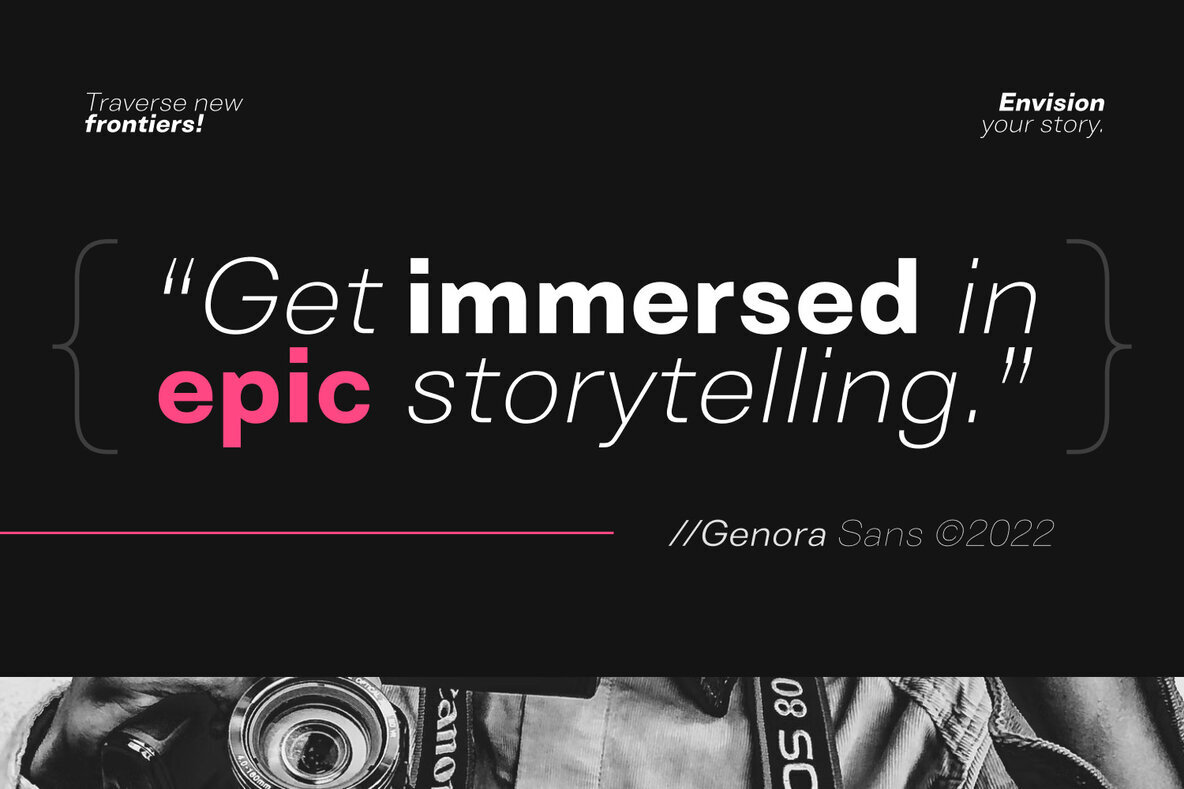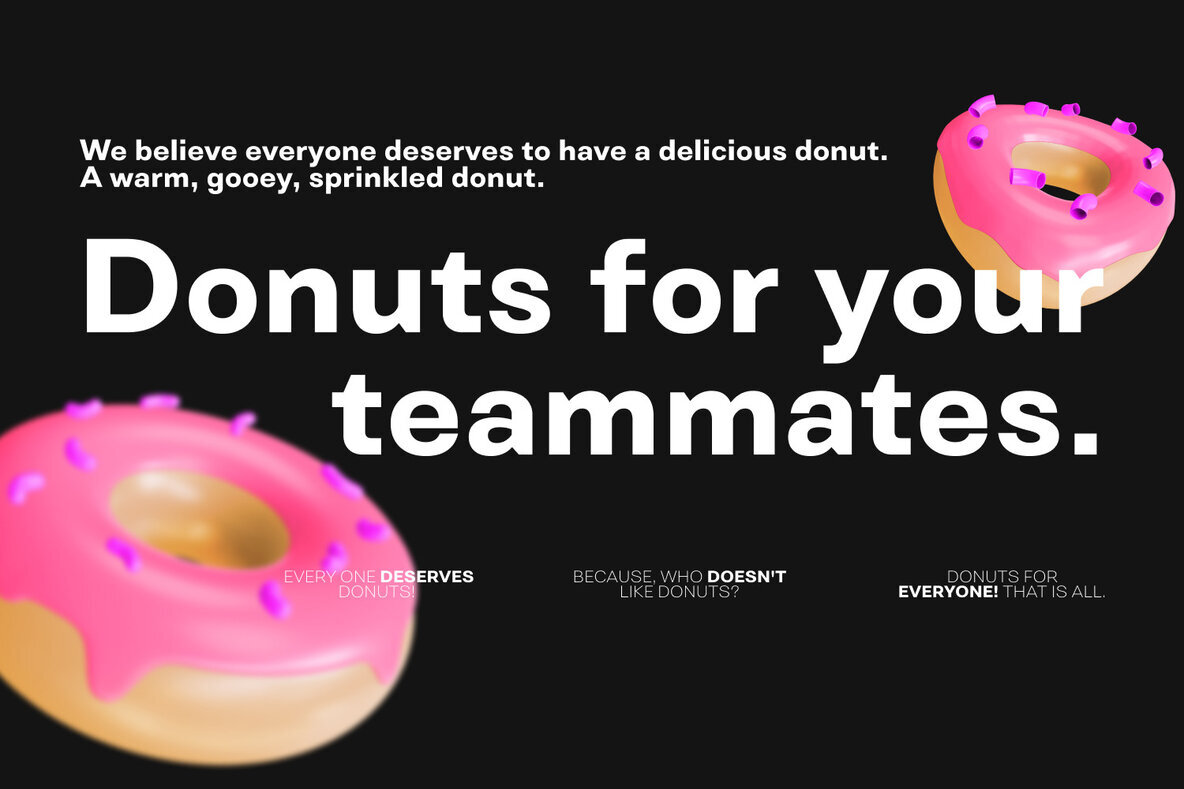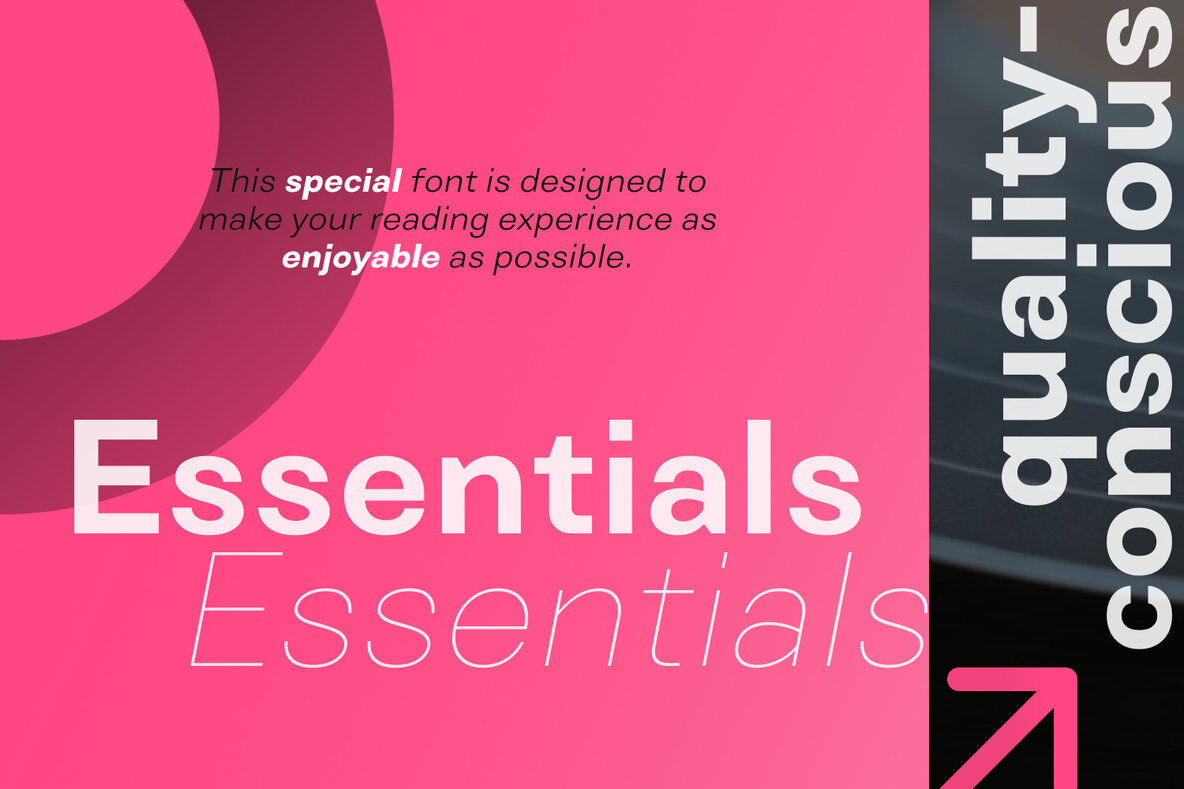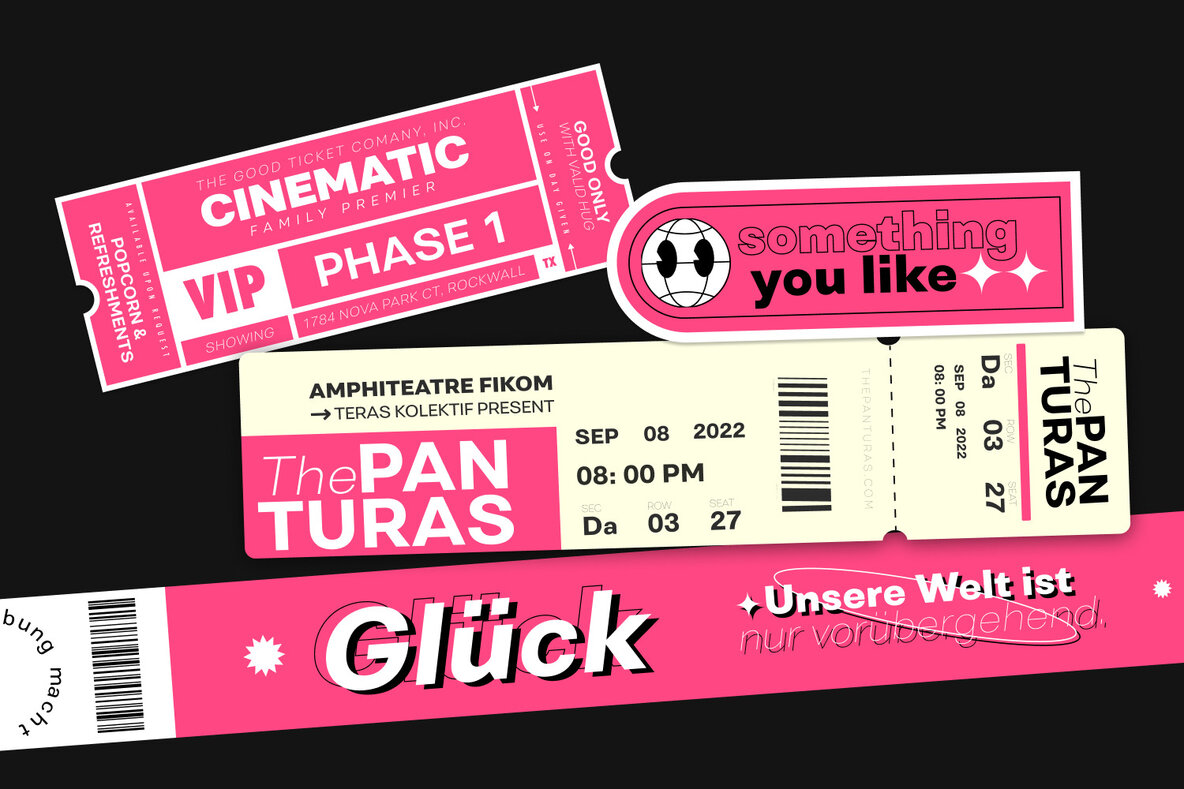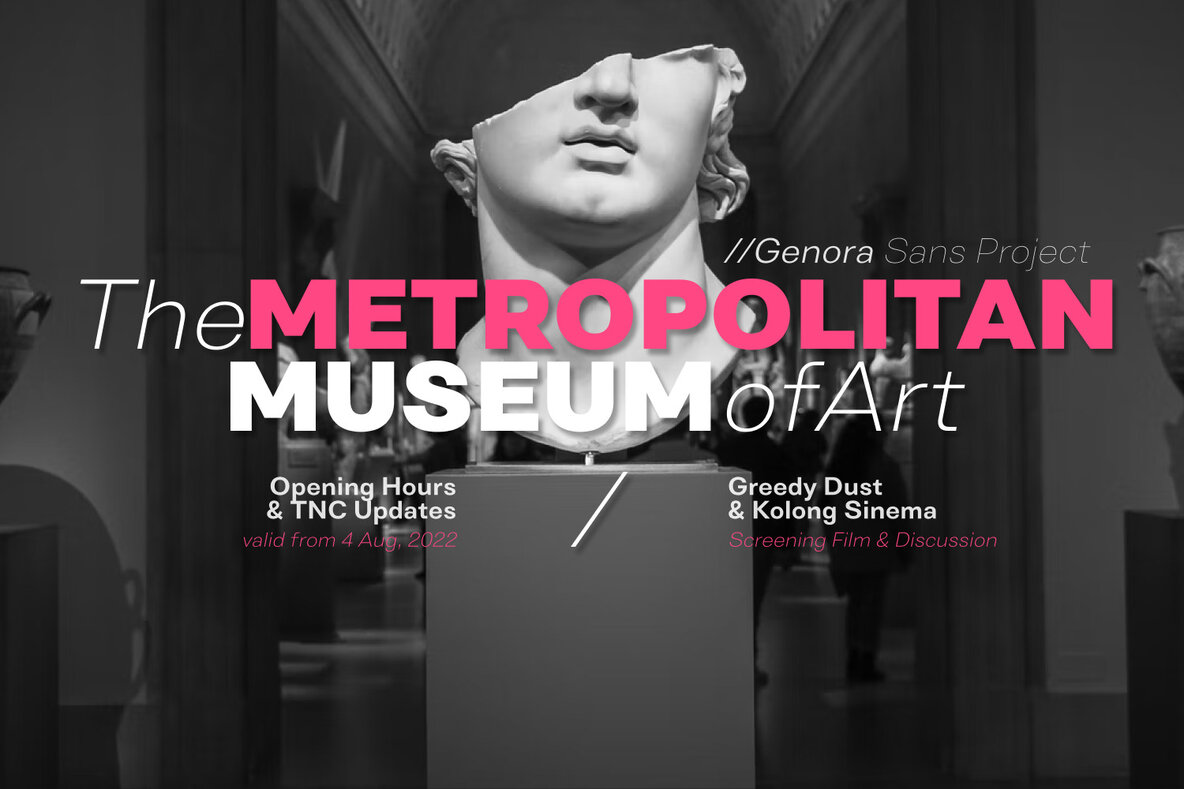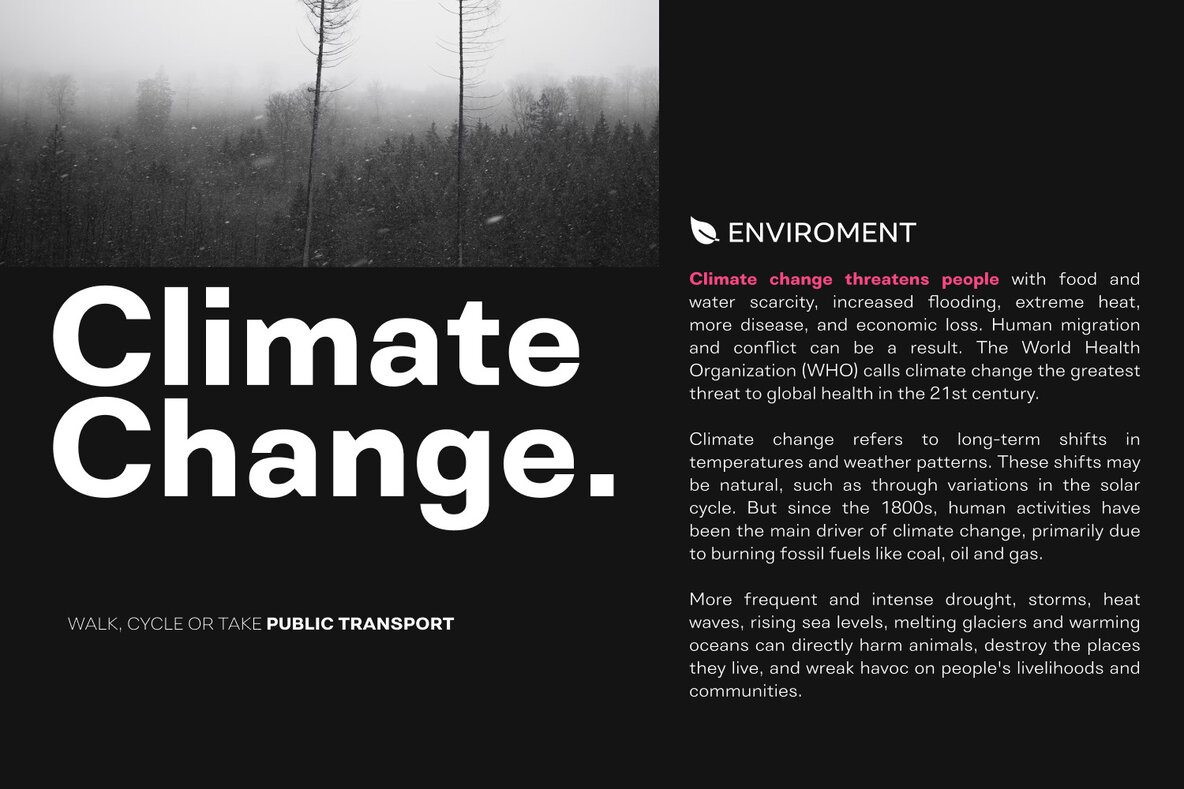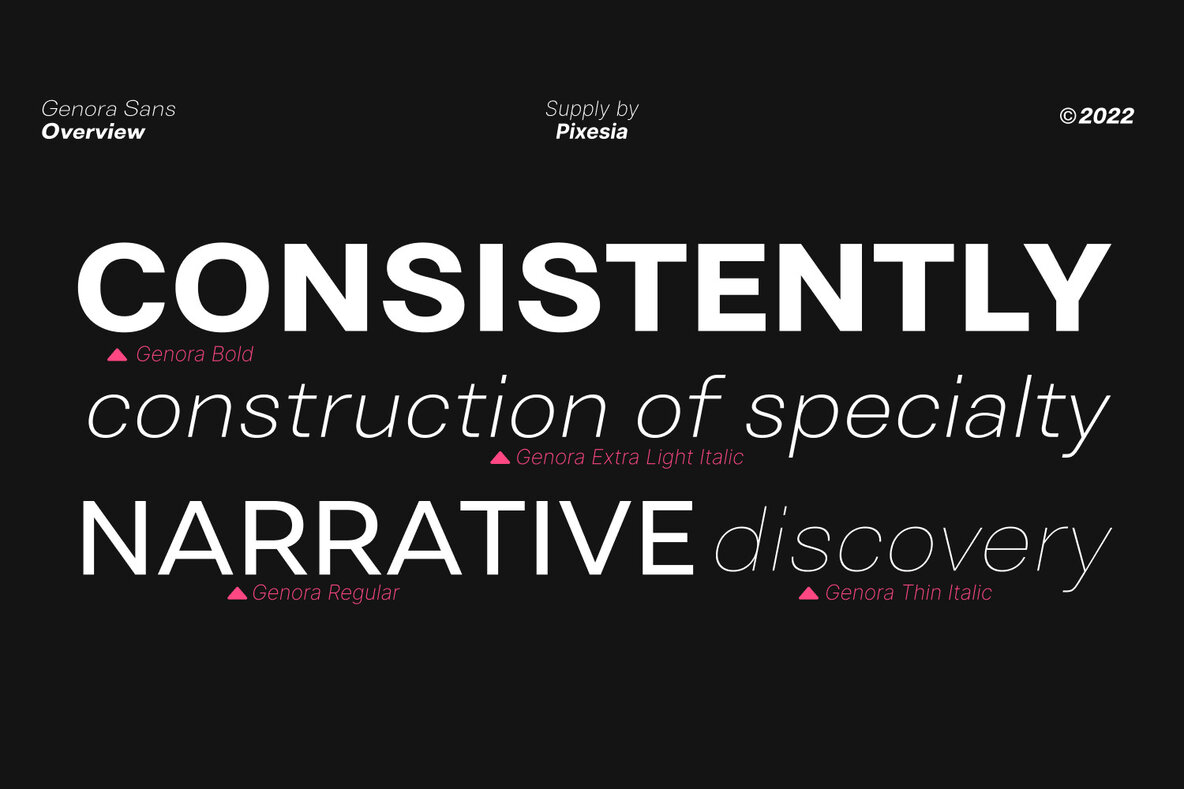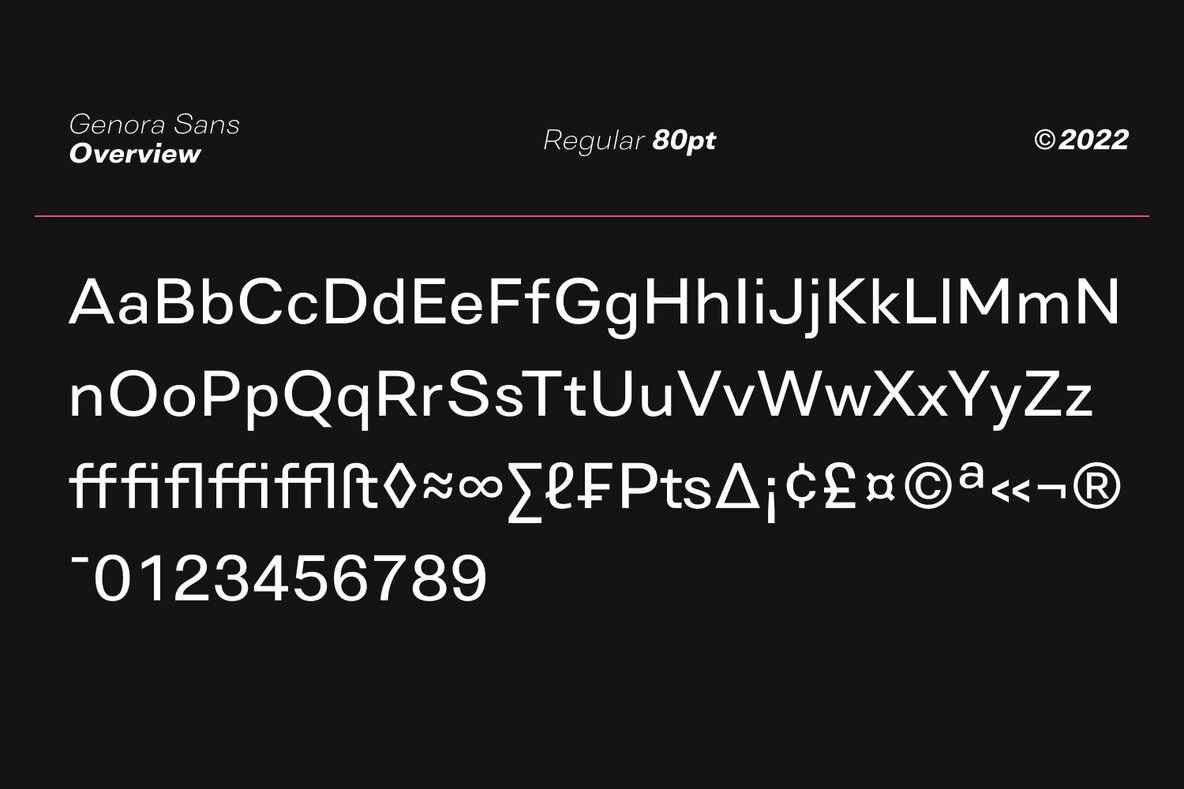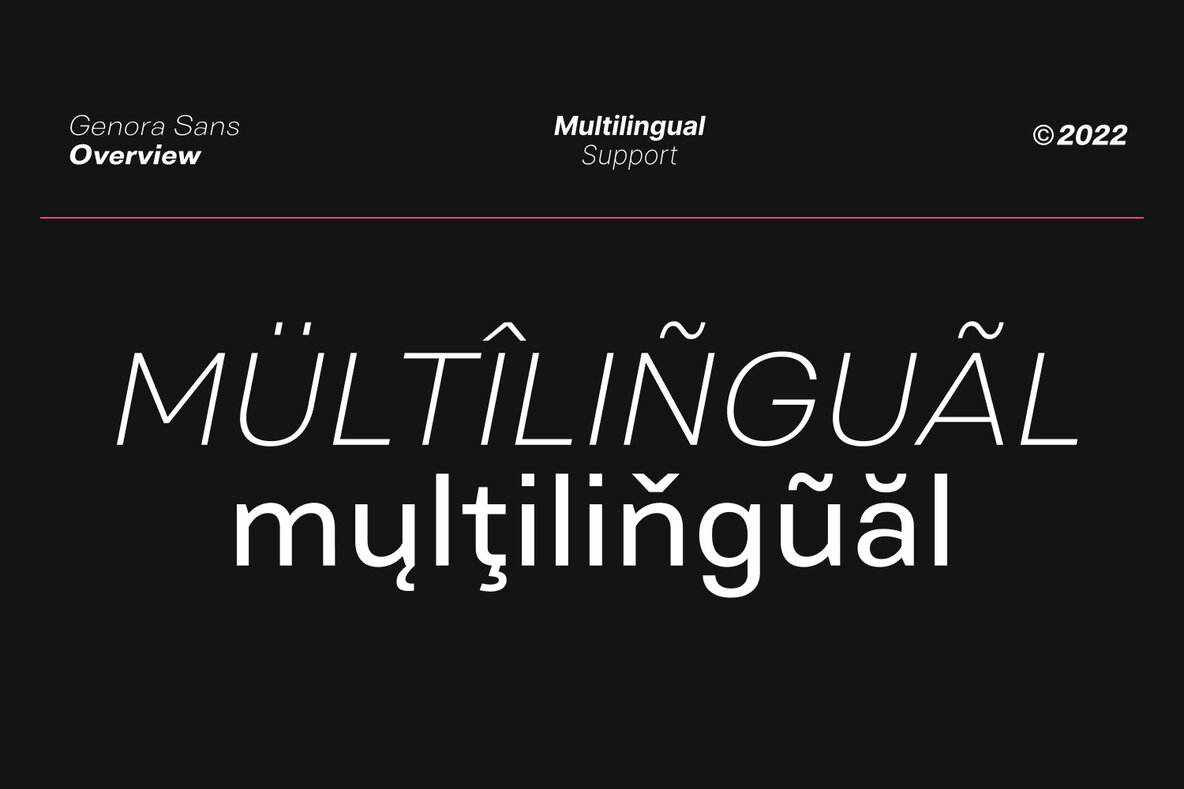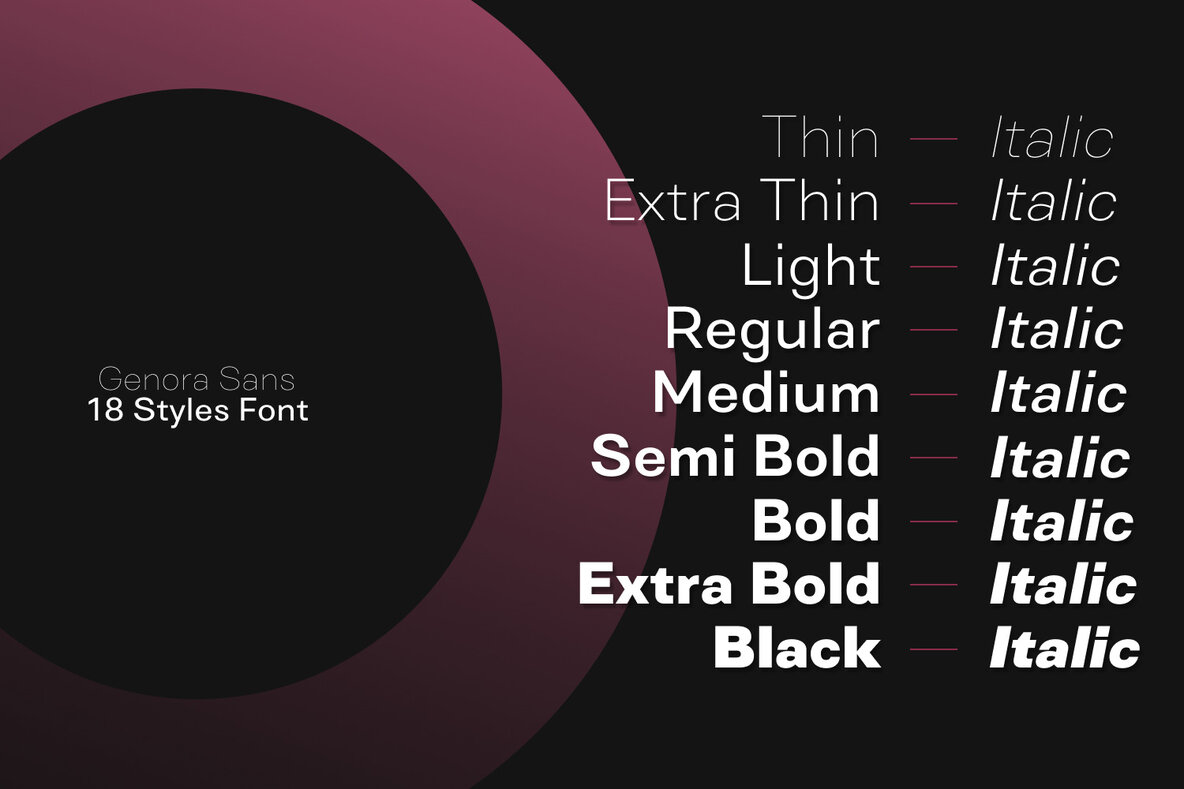
Genora Sans Font
Genora Sans is a new geometric sans serif and clean variable font. Genora Sans comes in a modern style featuring 9 weights and 18 styles from Thin to Black, making it easy to adapt to your design. The typeface is ideal for corporate identities, branding, publishing, websites, titles, books, magazines, business cards, logos, product labels, packaging, or any kind of advertising purpose and use on UI/UX design.
FEATURES
- Uppercase and Lowercase letters
- Numbering and Punctuations
- 9 Weight & 18 Style